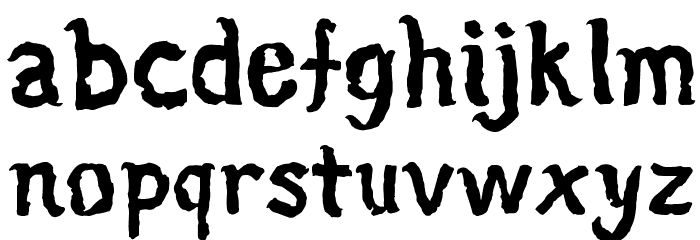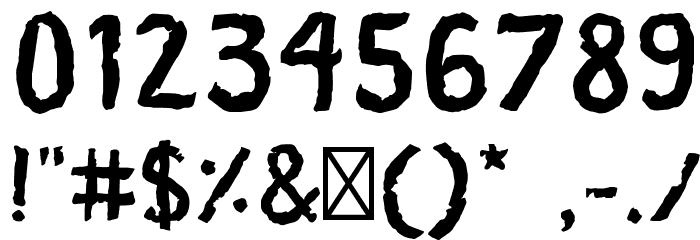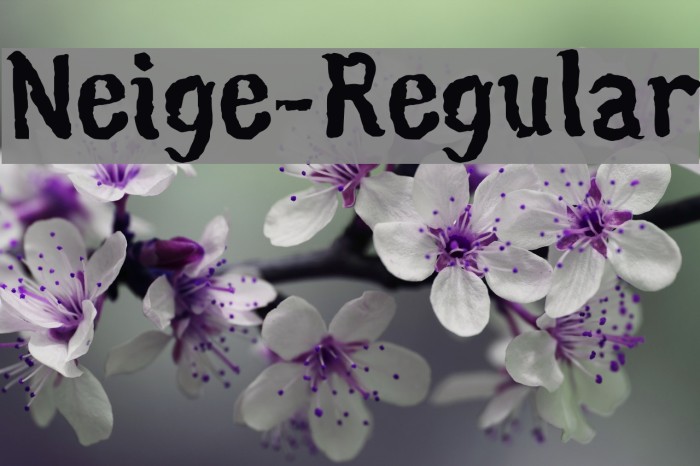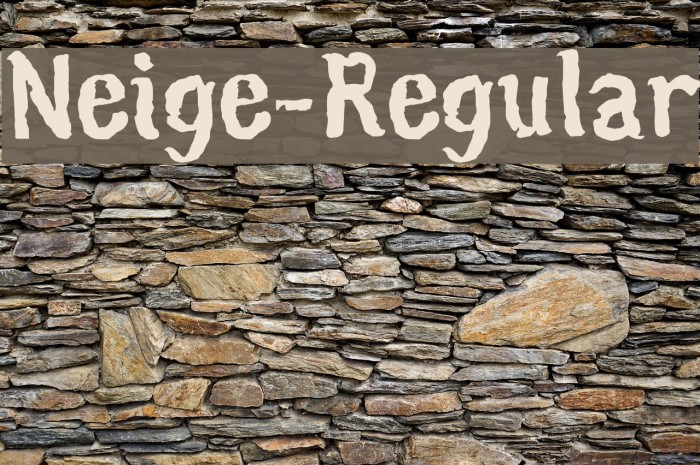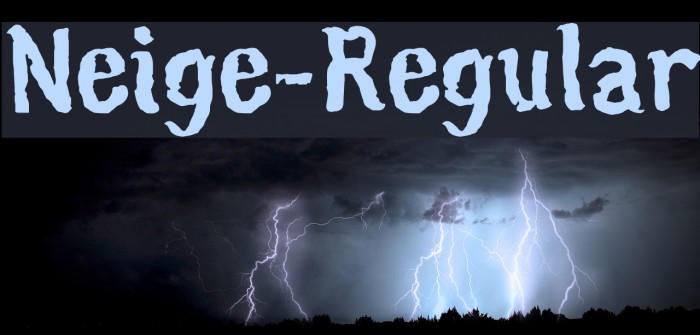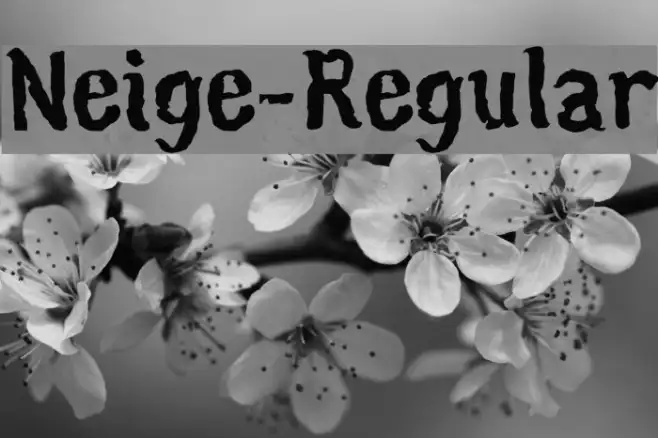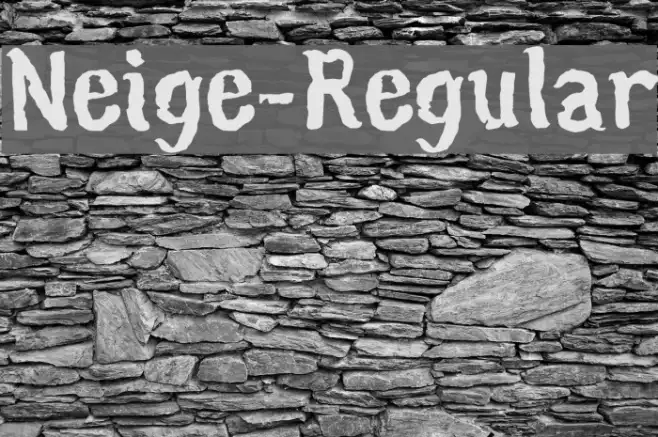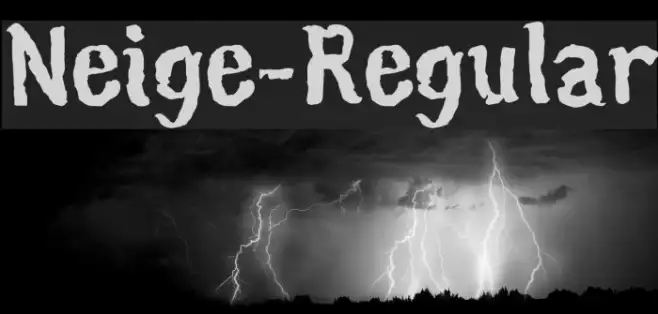
Neige-Regular Font
This font features a rugged, hand-drawn appearance with uneven edges and a textured look, reminiscent of brush strokes or ink on paper. The characters are bold and have a slightly irregular shape, giving them a dynamic and organic feel. The uppercase and lowercase letters maintain a consistent style, with the uppercase being slightly larger and more pronounced. Numbers and special characters follow the same design ethos, ensuring a cohesive look across all elements. The font's unique style makes it stand out, offering a creative and artistic touch to any project.
A bold, hand-drawn font with a textured, organic appearance.
- Proposed Projects: Ideal for artistic projects, posters, album covers, and branding that requires a creative and handmade touch.